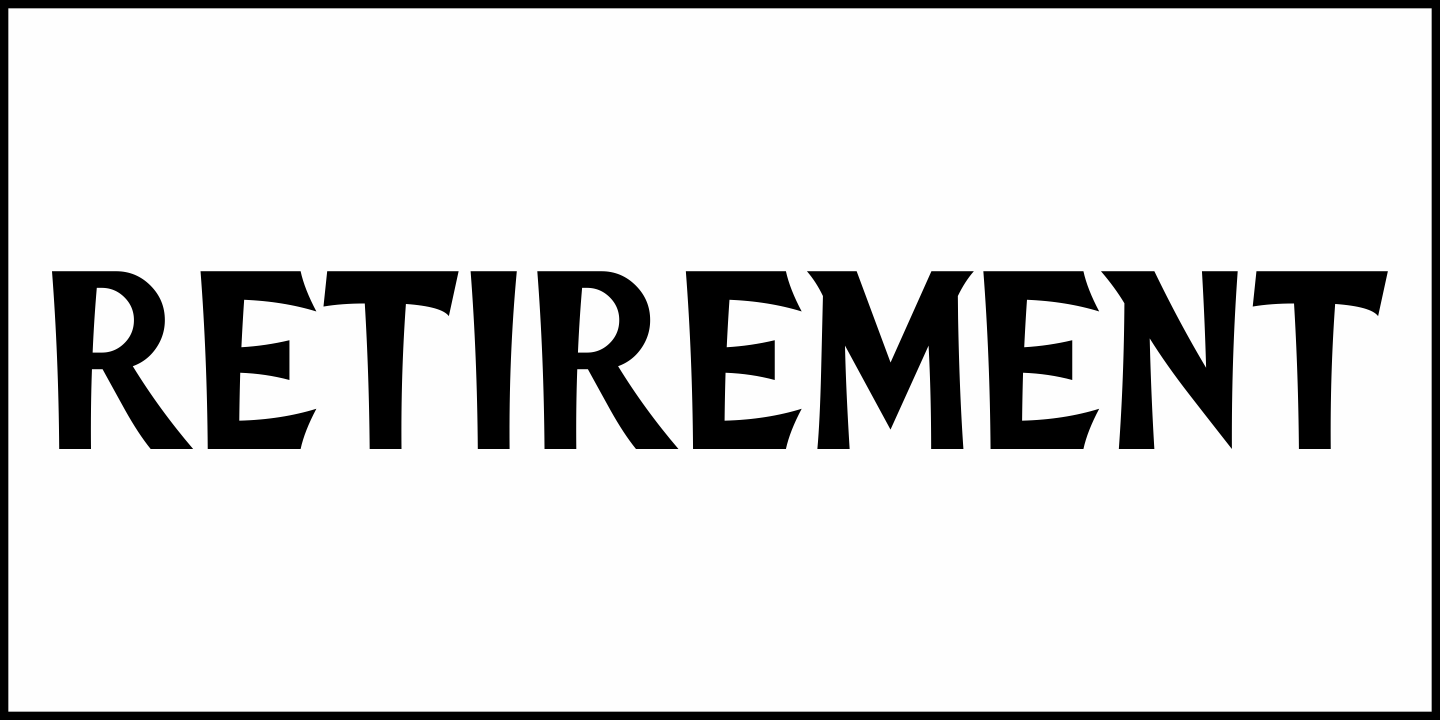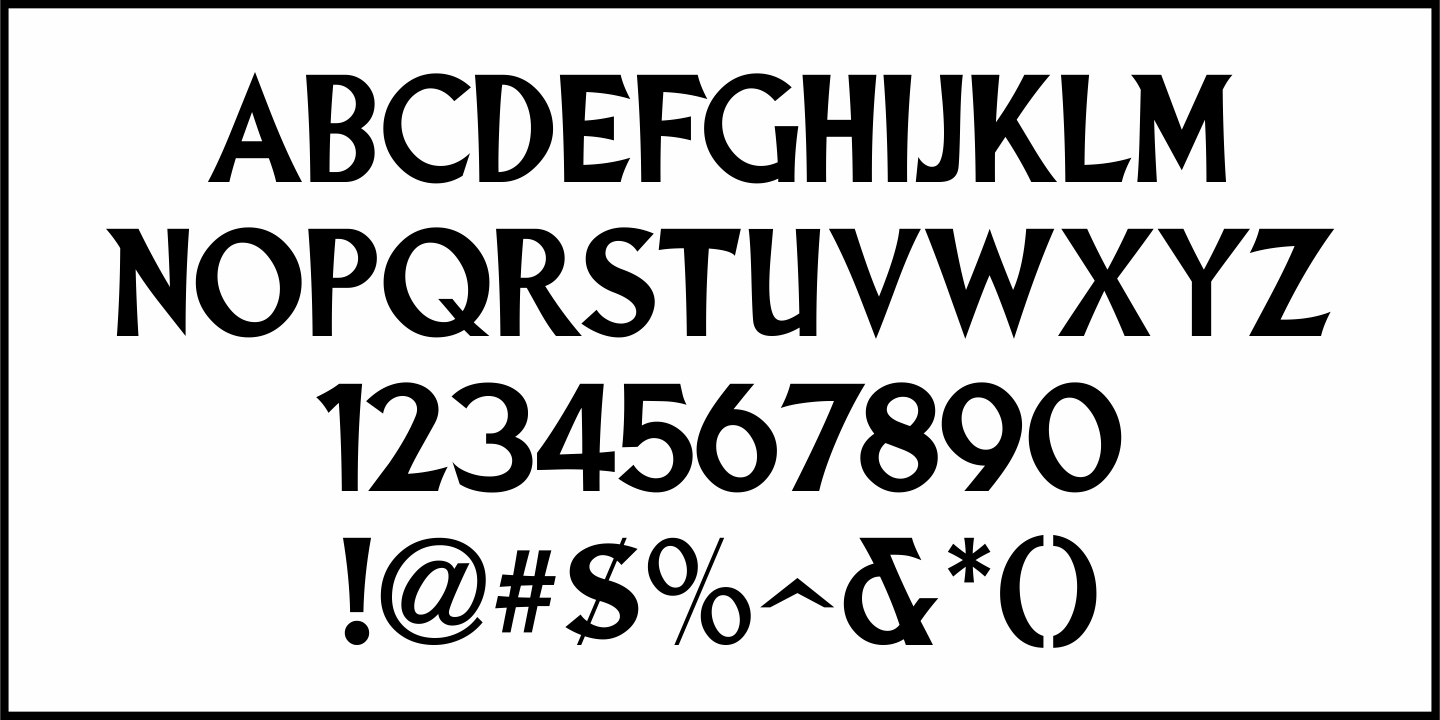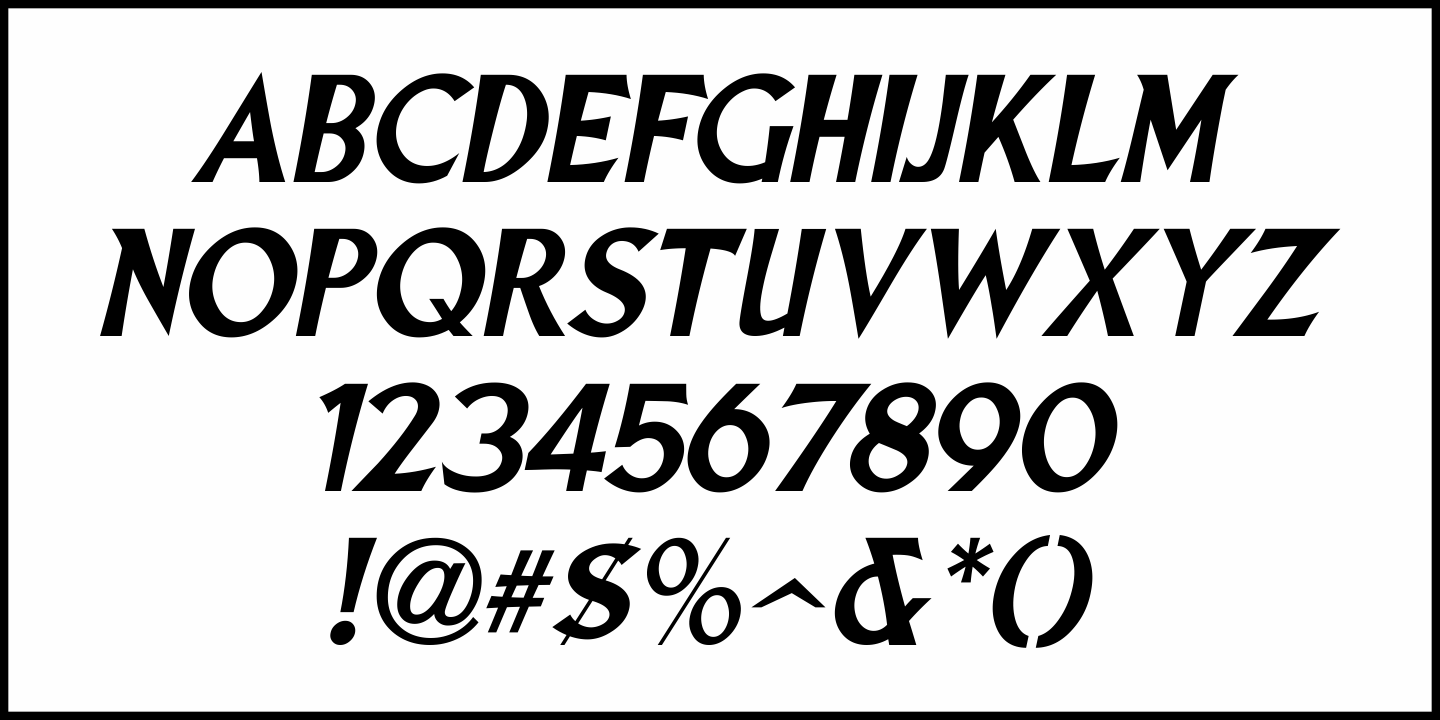
Retirement
The hand lettered film credits for 1937’s “Make Way for Tomorrow” were done in a sans serif design with an ever-so-slight flare and a slightly semi-calligraphic look.
Unusual in both style and varying character thicknesses, the lettering has been digitally redrawn as Retirement JNL, which is available in both regular and oblique versions.
Retirement JNL Regular by Jeff Levine Fonts